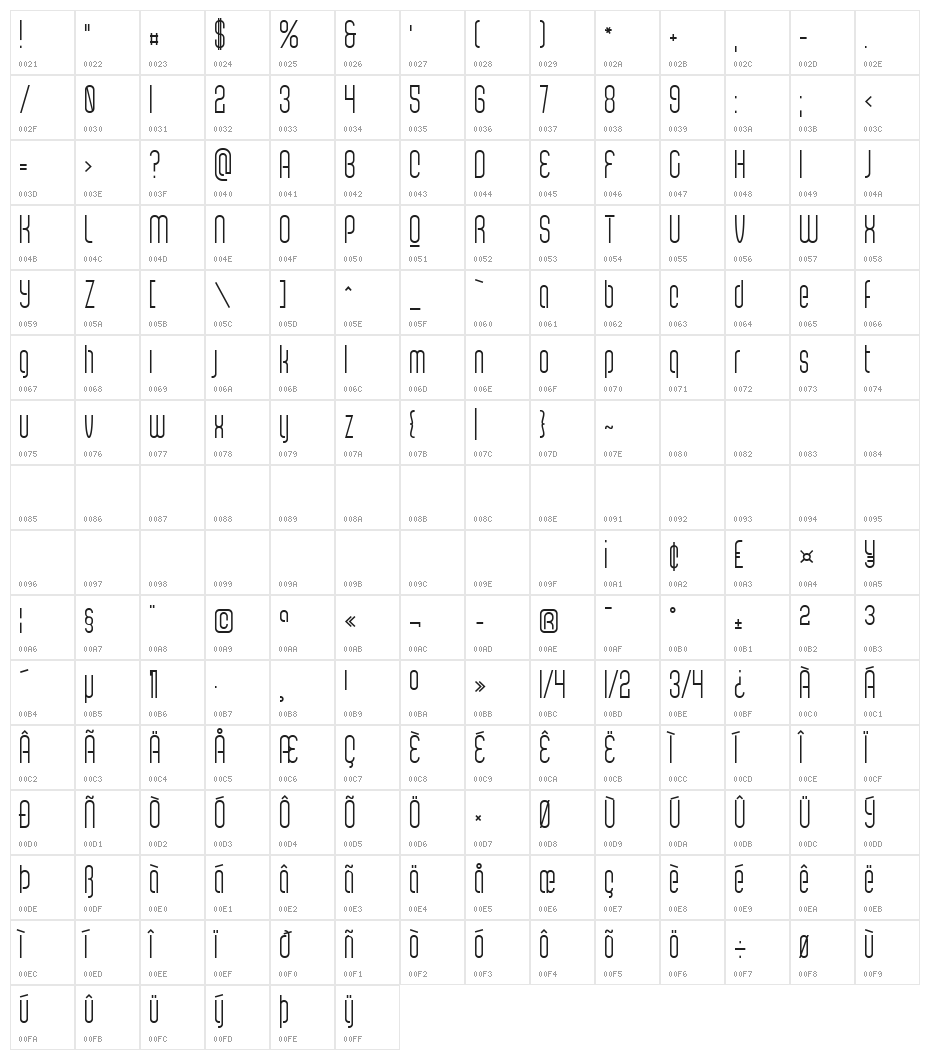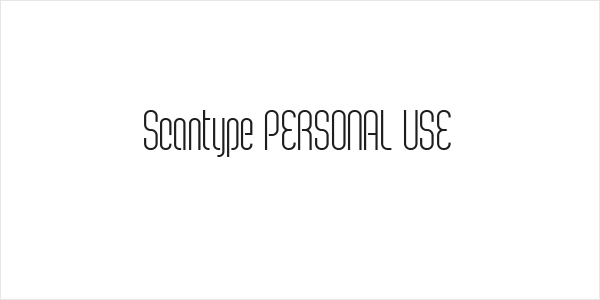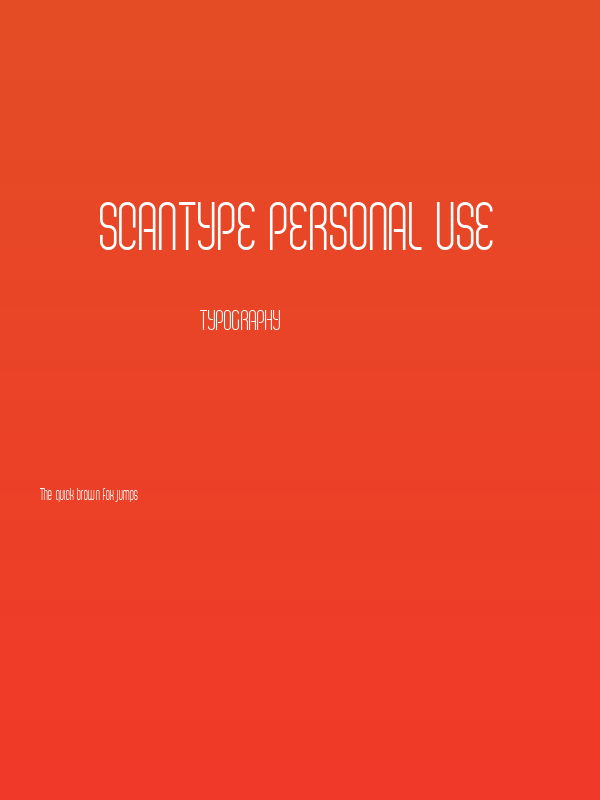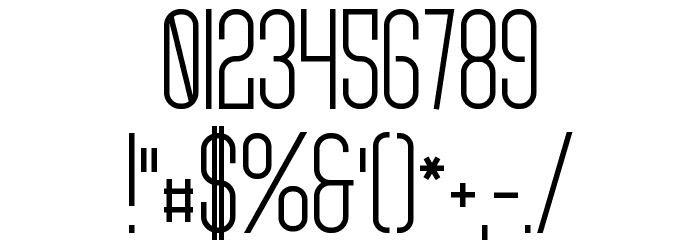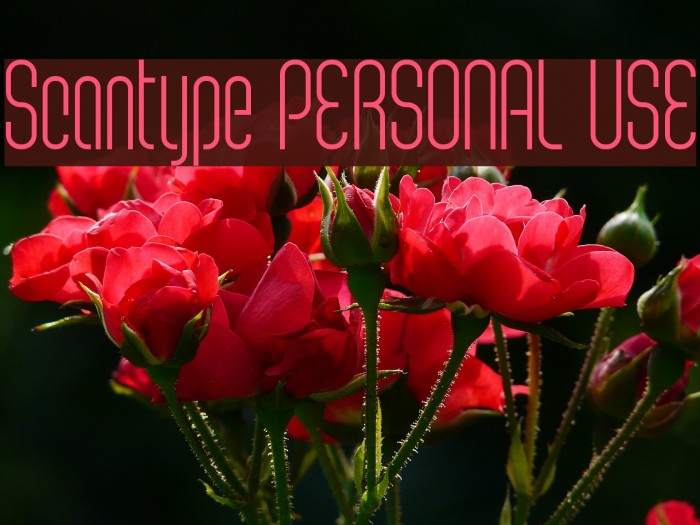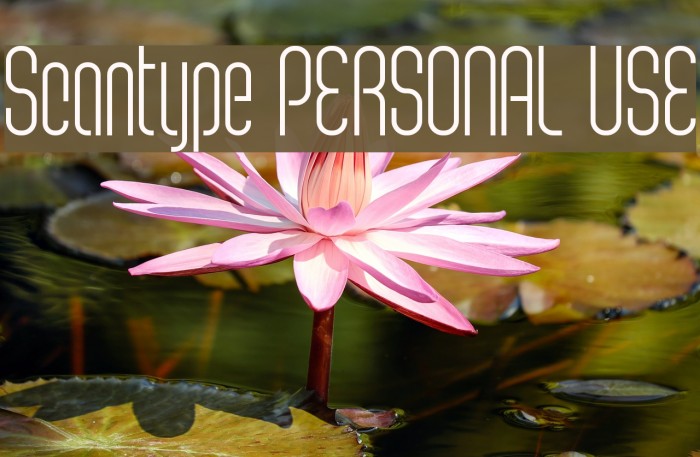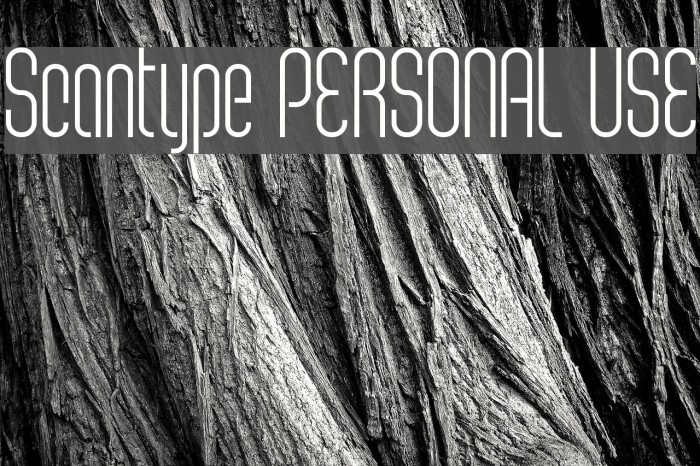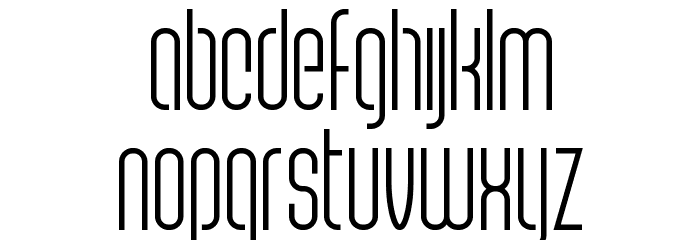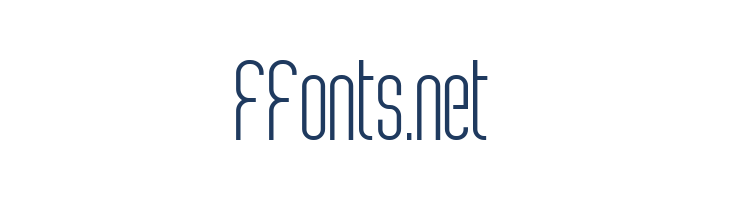
Scantype PERSONAL USE Font
Scantype PERSONAL USE Description
This font features a modern and sleek design with elongated, narrow characters that give it a distinctive and stylish appearance. The uppercase letters are tall and uniform, while the lowercase letters maintain a consistent height, contributing to a cohesive look. The numbers and special characters are designed with the same narrow and elongated style, ensuring a harmonious overall aesthetic. The font's clean lines and minimalistic approach make it suitable for contemporary design projects where a unique and sophisticated touch is desired.